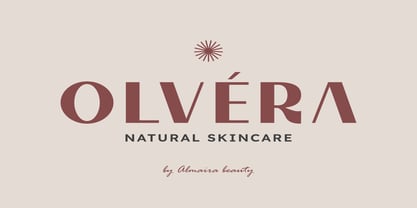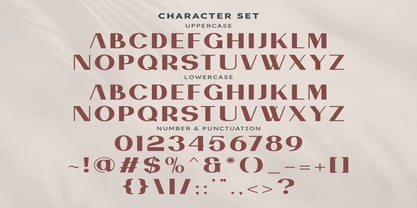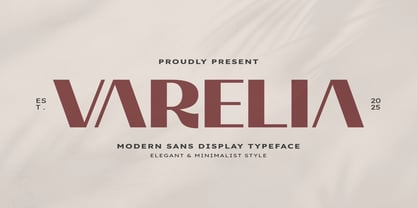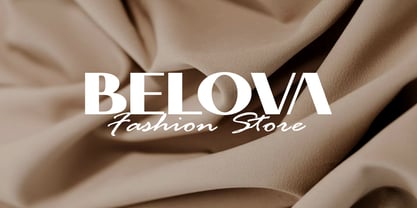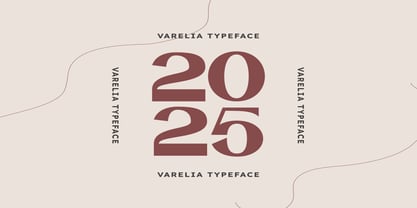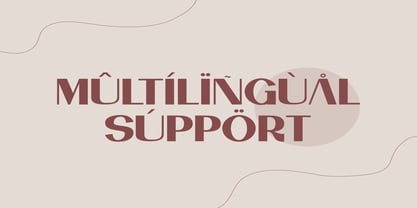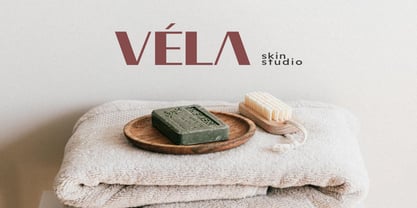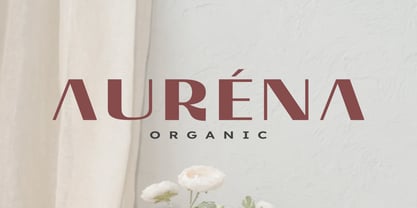
Varelia
by Masyafi Studio
The Varelia Font Family was designed by Muhammad Yafinuha and published by Masyafi Studio. Varelia contains 1 styles. More about this family
Introducing Varelia A Modern Sans Display Typeface with an Elegant & Minimalist Style. Elevate your design projects with Varelia, a sophisticated sans-serif font that exudes modern elegance and minimalist charm. This versatile typeface is perfect for creating stunning logos, headlines, branding materials, website designs, and more.
Designers: Muhammad Yafinuha
Foundry: Masyafi Studio